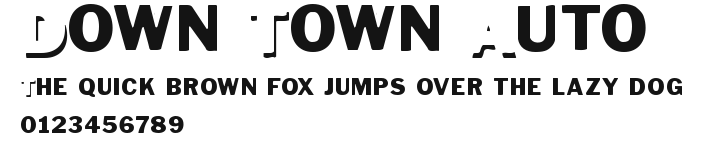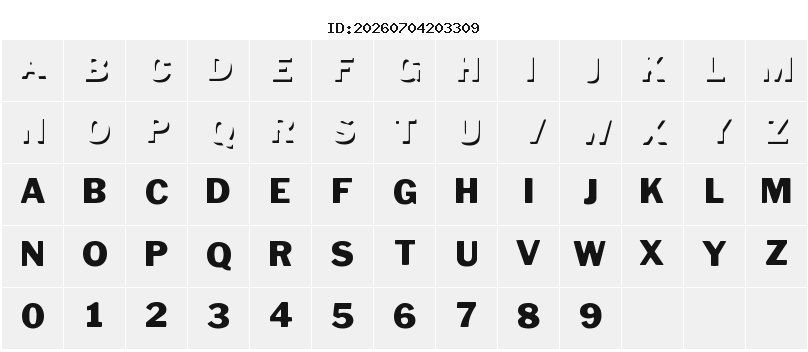
Down Town Auto Preview
• Font Name: Down Town Auto
• Full Font Name: Down Town Auto
About Down Town Auto.ttf
Down Town Auto.ttf is a modern, elegant sans-serif font designed for ultimate readability and visual harmony. Perfect for branding, headlines, web design, and print materials.